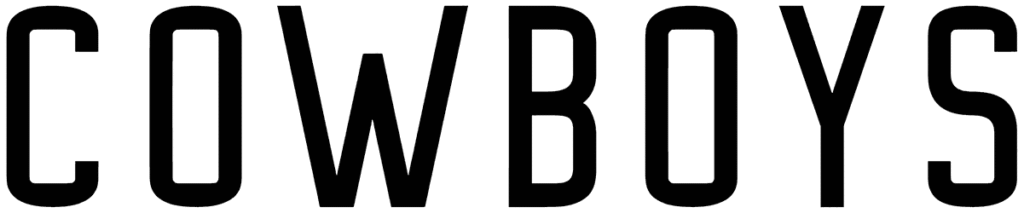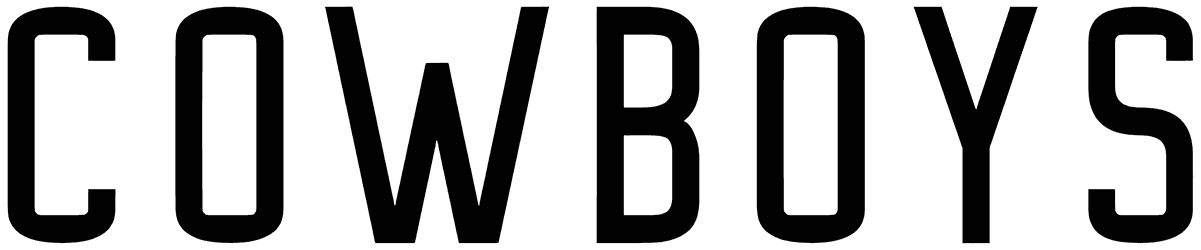
Cowboys Font
Apply a modest and catchy letterform for your layout and make your words striking. The Cowboys font, with its bold and square face, doesn’t cover lowercase letters and most punctuation marks. If you are working on a unique design like an industrial advertisement billboard, test this sans-serif font and see the final draft.